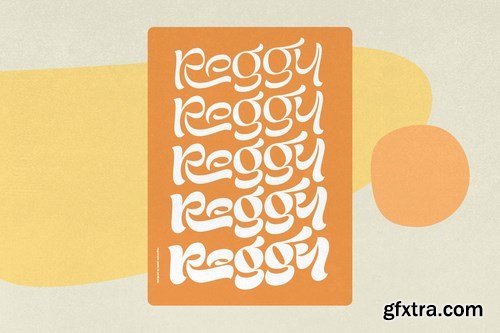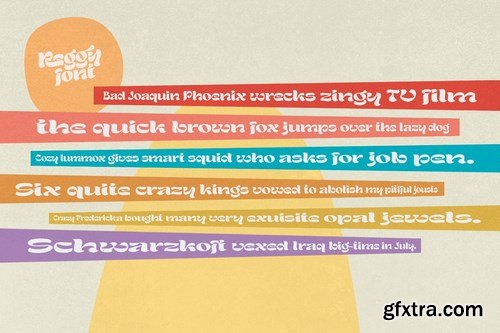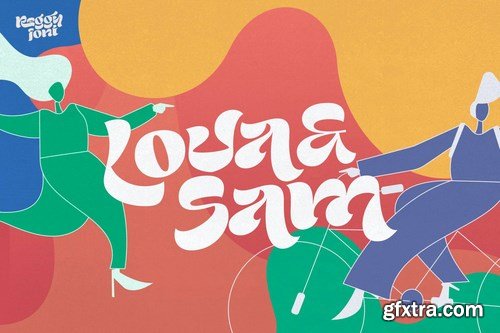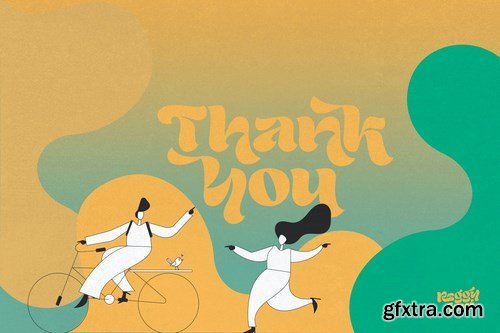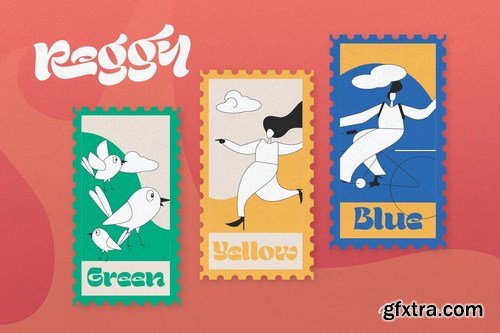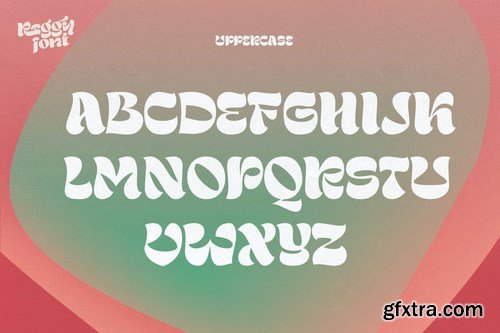
Unique and attractive display font that consists of 5 weights from thin to black and variable format. Sharp corners combined with rounded dynamic curves create a fun and happy impression.
Reggy is suitable for packaging design, logos, header text and branding, creative, entertaining design themes to instantly grab the audience's attention.
The stylistic alternates allow various shapes to give your lettering idea a well-looking look.